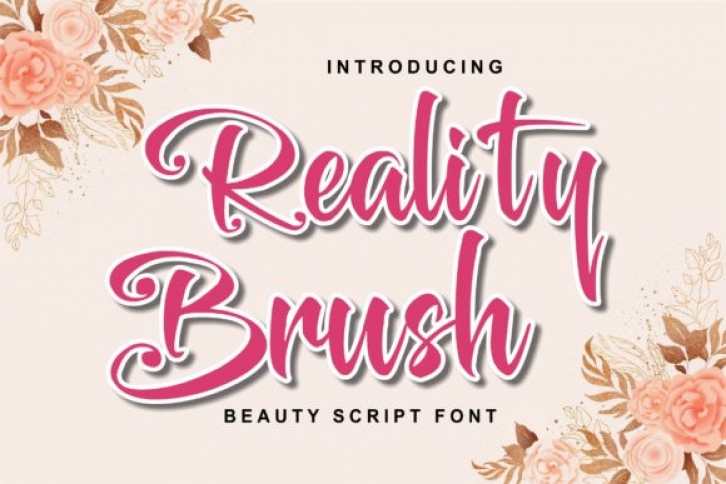
Reality Brush is a sweet and cursive handwritten font. This gentle font will look gorgeous on a variety of design ideas. It will add a joyful and romantic touch to each of your projects!